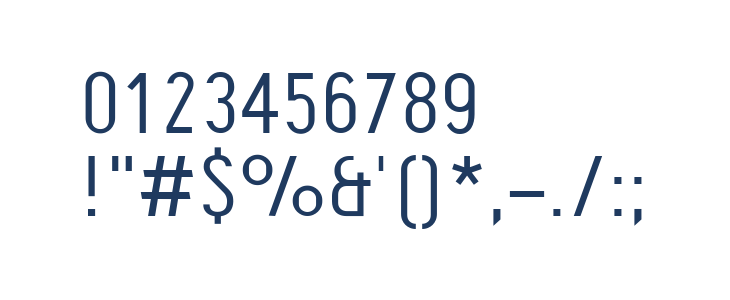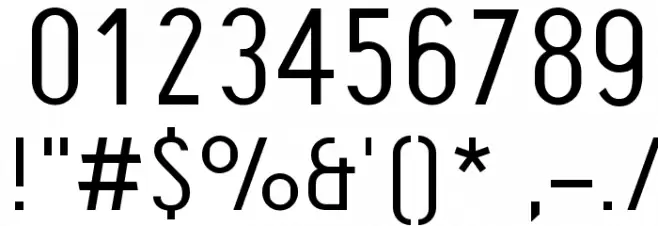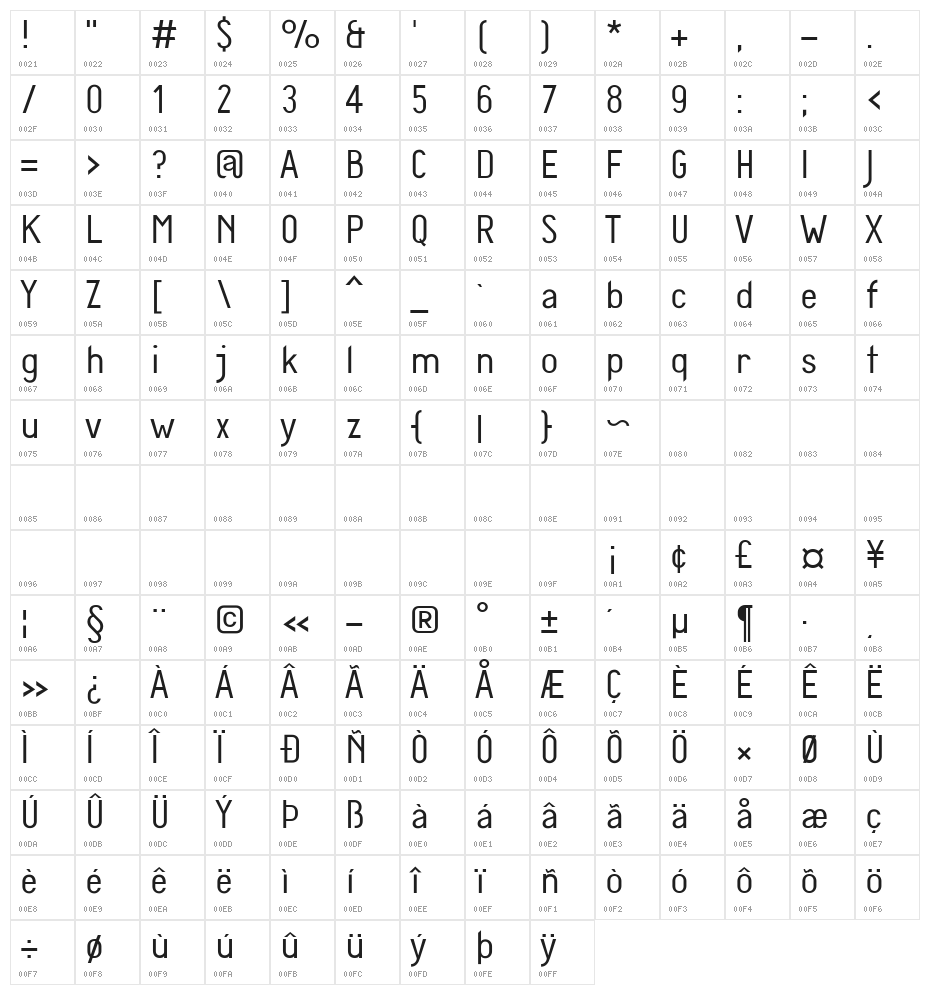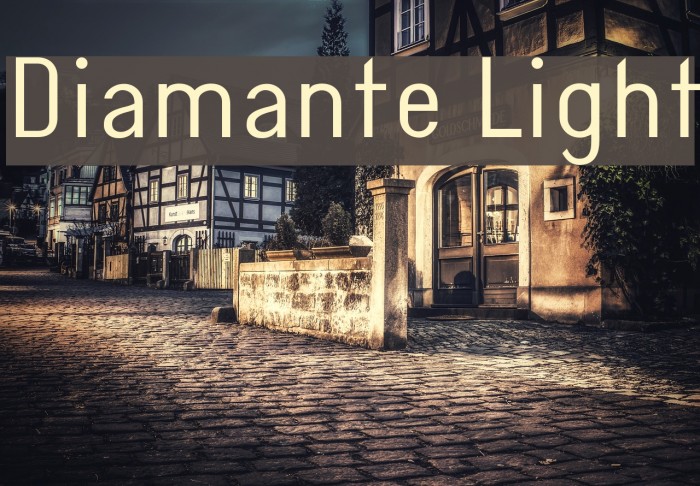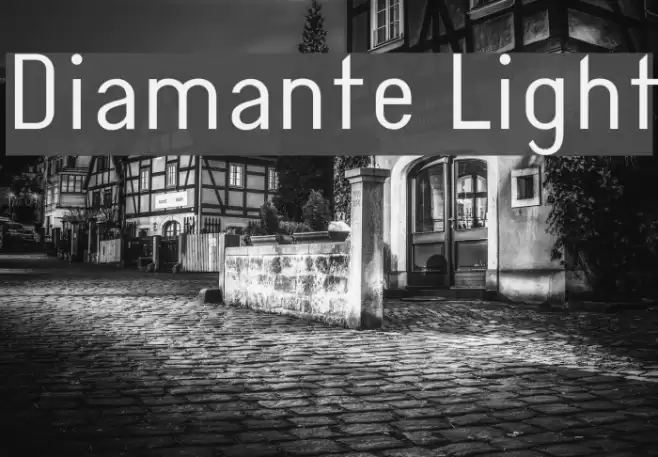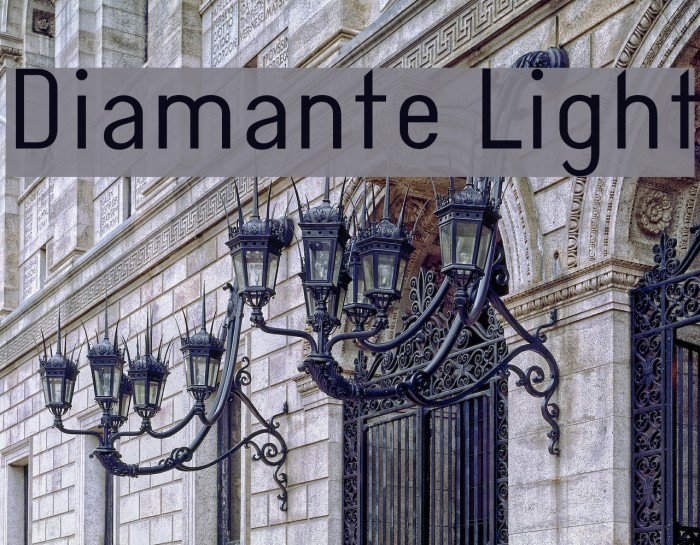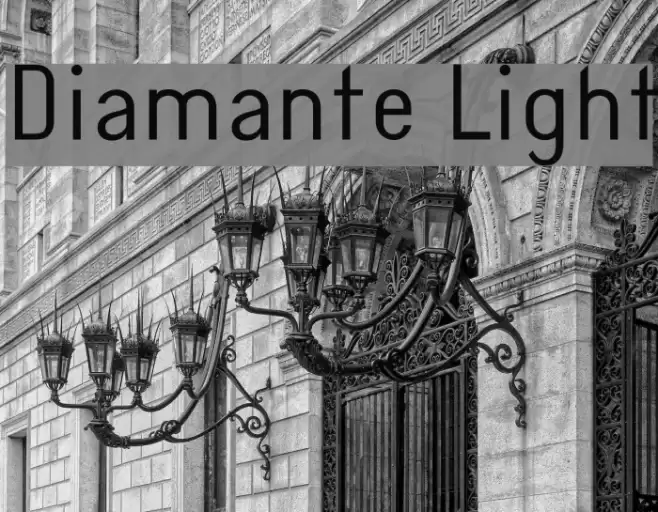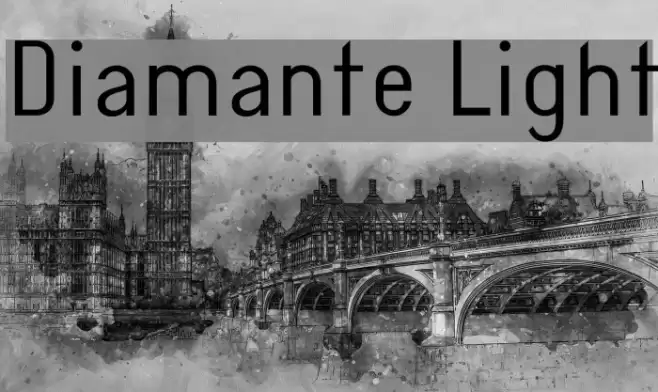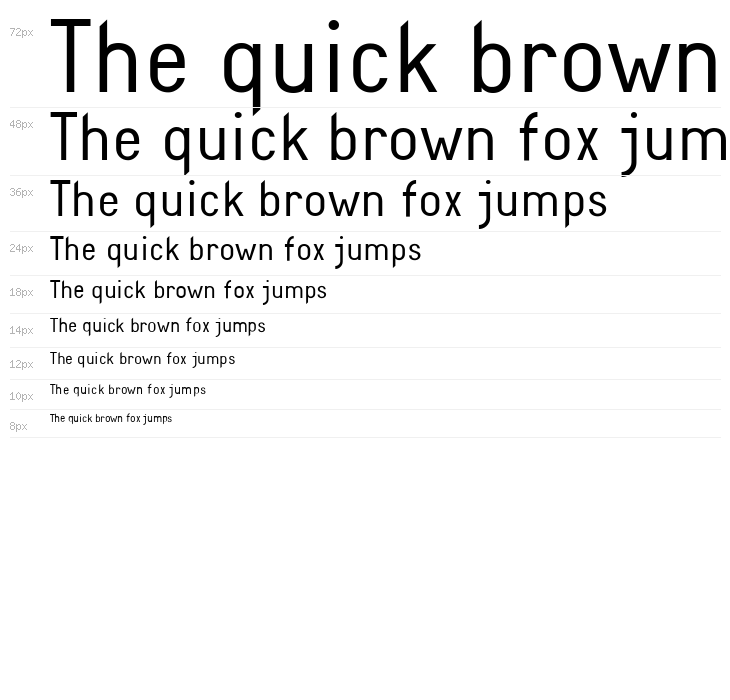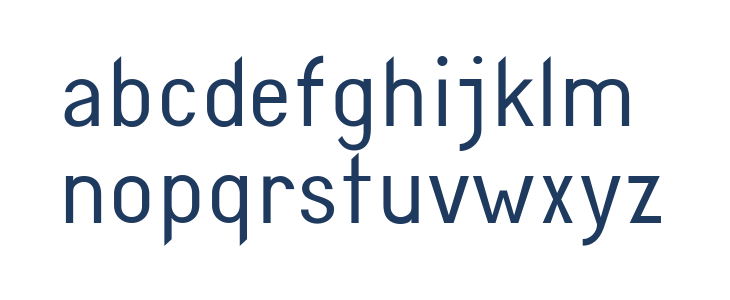
Diamante Light Font
Diamante Light Description
This font exhibits a clean and modern aesthetic with a sans-serif style. It features uniform stroke widths, giving it a sleek and contemporary look. The characters are well-defined with a geometric influence, providing a sense of precision and clarity. The uppercase letters are tall and commanding, while the lowercase letters maintain a consistent height, contributing to a harmonious appearance. The numerals are straightforward and easy to read, making them suitable for various applications. Special characters are included, enhancing its versatility for different design needs. Overall, this font is ideal for projects requiring a modern and professional touch.